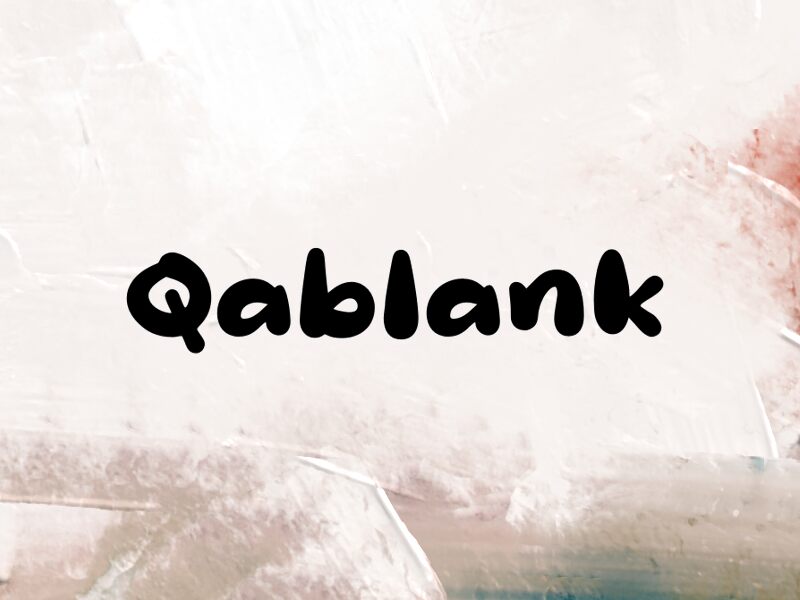
Qablank font, designed by Wep, is a cartoon and friendly typeface with informal visual features. Letters contain both geometrical and irregular curves with consistently small terminals. This free font is available in a single style with no variations on thickness, slant, or others.
This is designed for use in games, mobile apps, comic books, storybooks, How-to books, recipe books, and complementary typography. It makes an appropriate title for children-related content and platforms such as YouTube channels.
Qablank is an elegant free font that embodies a modern aesthetic, making it perfect for various design projects. Its sleek lines and versatile style enhance readability, allowing it to shine in both headlines and body text. Whether you're working on branding, advertising, or personal projects, this free font offers a unique touch that elevates visual communication.